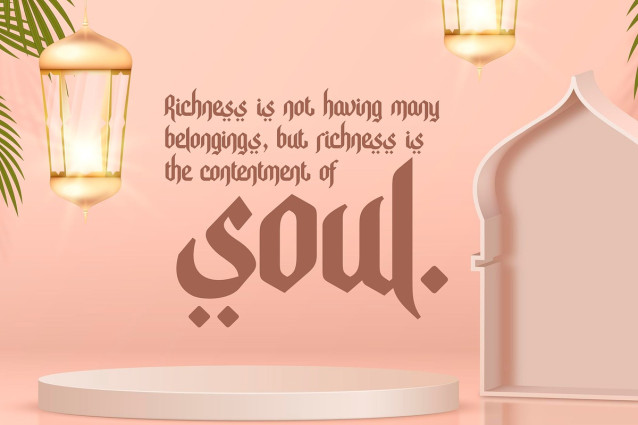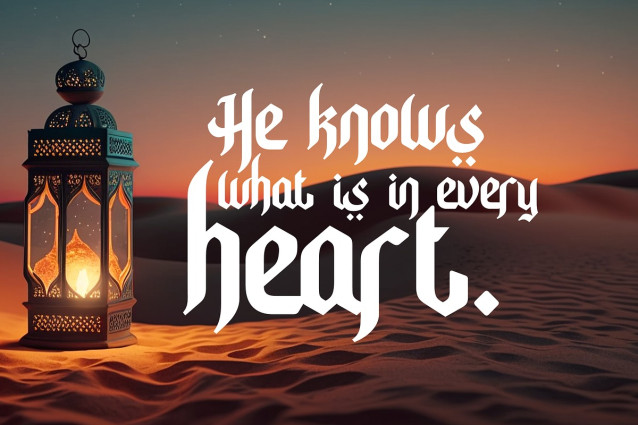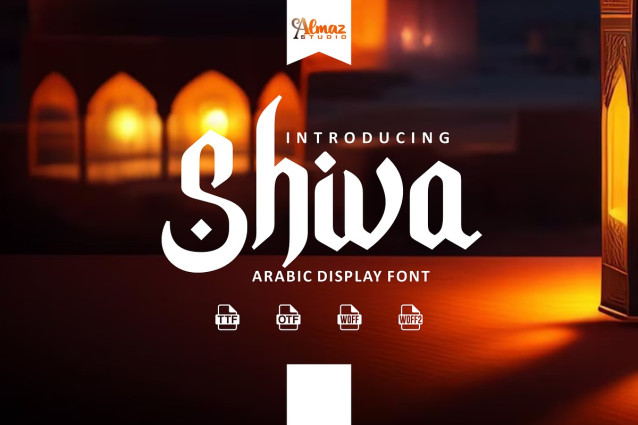
Shiva Font
Shiva Font is a typeface specifically designed for writing and displaying Arabic script. Shiva fonts possess unique characteristics that make them easily recognizable. The letters are typically connected, creating a flowing and continuous appearance. The script also has a distinct vertical structure, with letters extending from the baseline upwards. Shiva font styles vary widely, ranging from traditional and calligraphic styles to more modern and geometric designs. Each style carries its own cultural and artistic influences, reflecting the rich history and diversity of Arabic calligraphy. Arabic fonts are commonly used in various contexts such as advertising, signage, publications, and web design to add an authentic and visually appealing touch to Arabic content. With their intricate and decorative elements, Arabic fonts bring a unique aesthetic and enhance the beauty of any Arabic text.